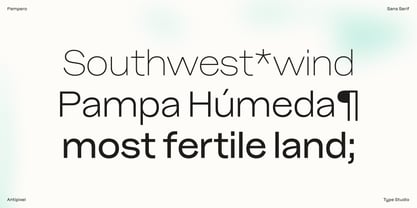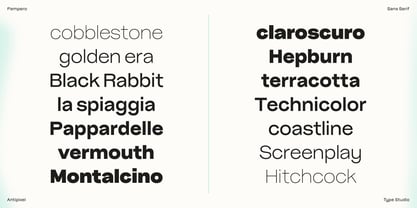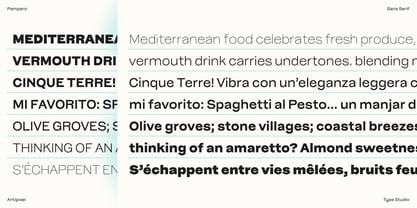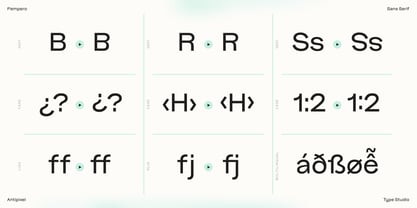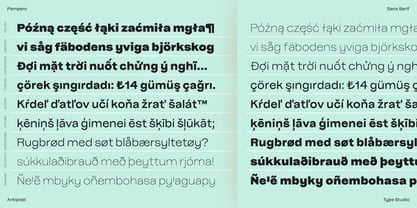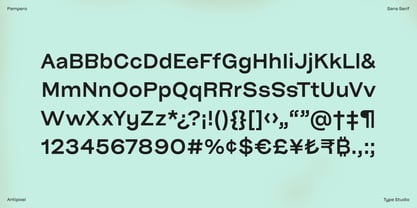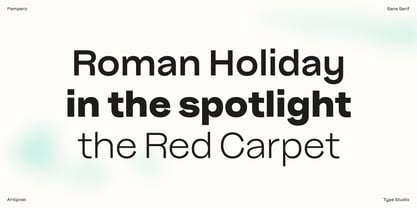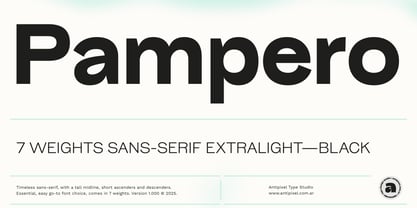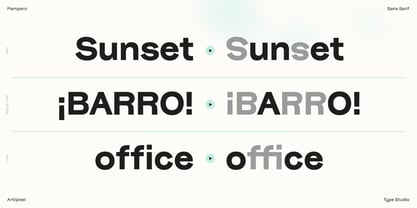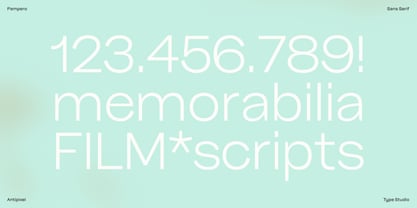
Pampero
Die Schriftfamilie Pampero wurde von Julia Martinez Diana entworfen und von Antipixel veröffentlicht. Pampero enthält 7 Stile und Familienpaketoptionen. Mehr über diese Familie
Pampero is a timeless sans-serif typeface built to be every designer's easy go-to font choice. Extremely versatile and flexible, Pampero effortlessly adapts to any design context, whether it is as the lead font due to its strong personality, or by pairing it as the low key companion. This adaptability comes from its clean, contemporary structure. Pampero consists of 7 font weights, making it an essential typeface for any design workflow. A popular choice thanks to its readability, versatility, and timeless aesthetic. One of its main attributes is the tall midline, which gives Pampero a touch of charisma while maintaining a classic construction. Other aspects of its anatomy are the large x-height, short ascenders and descenders, vertical axis, and balanced proportions. Every shape is reduced to its core purpose, making Pampero highly flexible and suitable for a wide range of applications, from body text and headlines to branding, web design, and packaging. Designed with precision, Pampero features high-quality contours that elevate its performance in display and large-scale settings, as big as in billboards, and at the same time defined forms for small settings and delicate details, as in short copy text. On the playful side, Pampero includes a Stylistic Set that inverts the relation of proportions of glyphs B, R, S, s, along with other classic OpenType features, Standard Ligatures, Discretionary Ligatures, Case Sensitive Forms, and more. Unapologetic and confident, Pampero is meant to make an impact across multiple languages. With extensive glyph support covering 216 languages, it is built for international reach and global use.
Designer: Julia Martinez Diana
Foundry: Antipixel
Antipixel is an independent type design studio with main focus on display typefaces. Founded and run by Julia Martinez Diana since 2014, the studio has a collection of 15 published font families. These are all energetic and hand-rendered typefaces, full of spirited quality, energy, and casual character. Always with a charismatic personal touch and with love for natural and organic forms.